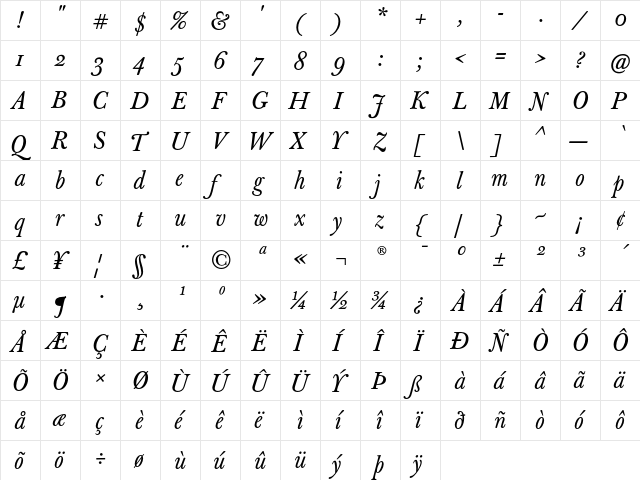
J Baskerville Text Italic
Design Context for J Baskerville Text Typeface
J Baskerville Text takes a measured approach to typography — its balanced proportions and neutral character make it a reliable workhorse for both digital and print work. The slanted form adds forward momentum and visual energy.
Pro Tip: Try J Baskerville Text for annotation and caption copy alongside an upright companion — the contrast in angle creates a dynamic but ordered typographic system.